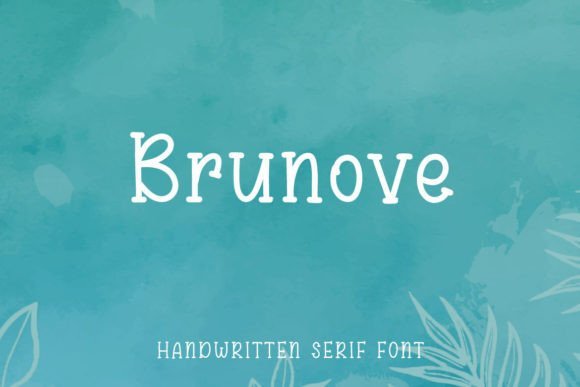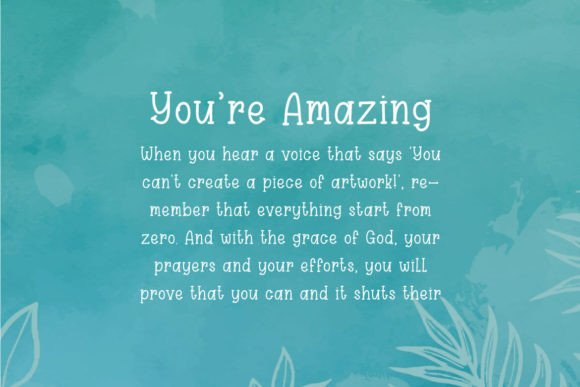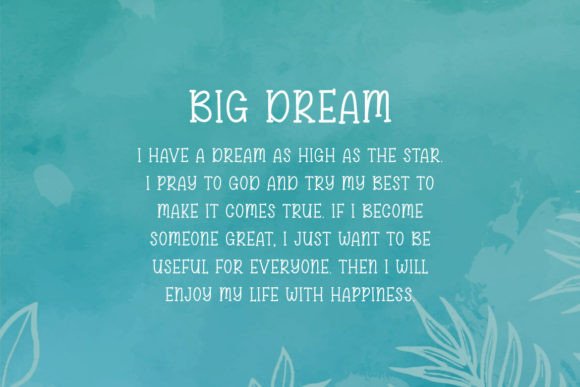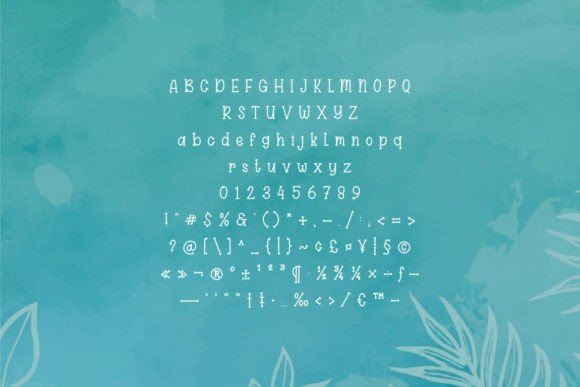
The Power of Handwritten Charm: Unlocking the Potential of Brunove Font
Have you ever found yourself doodling in a notebook, letting your pen wander across the page as you bring your ideas to life? It’s a moment of pure creative freedom, where the constraints of design disappear, and the only limit is your imagination. For designers, this feeling is what drives them to create something truly special – and that’s exactly what the Brunove Font offers.
As a versatile handwritten serif font, Brunove is perfect for a wide range of projects, from comic books and posters to school materials and social media content. Its unique, handwritten feel adds a touch of personality to any design, making it stand out from the crowd. Whether you’re a seasoned designer or just starting out, Brunove Font is a valuable addition to your toolkit, offering endless possibilities for creative expression.
Brunove Font Key Features
- Font Family: Brunove is a serif font family designed for use in body text and display headings.
- Character Set: Brunove supports a wide range of languages, including Latin, Cyrillic, and Greek alphabets, as well as various diacritics and punctuation marks.
- Unique Characteristics: Brunove’s distinctive design features include its elegant serif forms, subtle flair at the terminals, and carefully crafted letter spacing to create a harmonious and readable text environment.
Brunove Font Review
I recently had the chance to work with the Brunove font, and I must say it’s a mixed bag. On the one hand, there are some things that really shine.
- ✨ Unique Character: Brunove font has a unique, hand-drawn feel that sets it apart from more generic sans-serif fonts.
- ✨ High Legibility: Despite its quirky feel, Brunove is surprisingly easy to read, even at smaller font sizes.
- ✨ Good Versatility: I found that Brunove works well in a variety of contexts, from headings to body text.
However, there are some limitations to consider.
- ⚠️ Limited Font Sizes: While Brunove is easy to read, it doesn’t quite scale well to very large font sizes. It can start to look a bit rough and uneven.
- ⚠️ Limited Character Set: Brunove’s character set is limited, which may be a problem if you need to use it for languages that require a lot of special characters.
Overall, I think Brunove is a solid choice for projects where you want a unique, hand-drawn feel. Just be aware of its limitations, and use it thoughtfully.
Tips for Getting the Most Out of Brunove Font
Experiment with different font sizes, colors, and styles to create a unique visual identity.
Combine Brunove Font with other fonts or design elements to create a visually appealing design.
Use Brunove Font for headings and titles to draw attention and create a clear hierarchy of information.
Brunove Font is suitable for creative projects, such as:
Graphic design
Typography projects
Web design